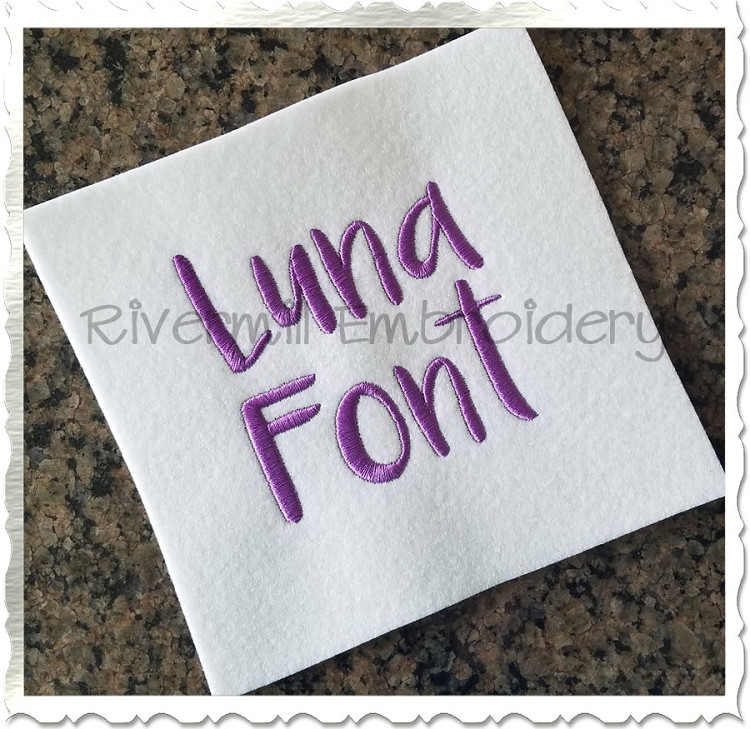
Luna Machine Embroidery Font Alphabet
This set comes with upper & lower case letters and numbers 0-9 in 3 sizes:
1 Inch Alphabet - Satin Stitch
1 1/2 Inch Alphabet - Satin Stitch
2 Inch Alphabet - Satin Stitch (some split satin in wider areas)